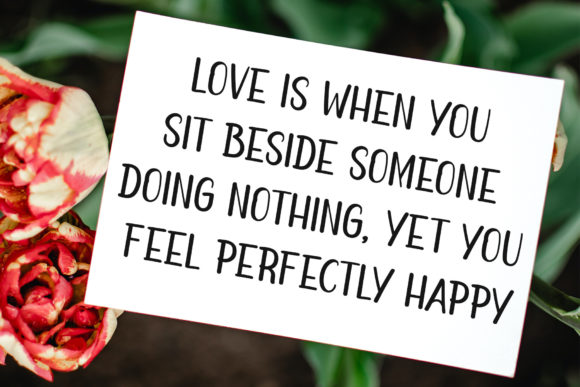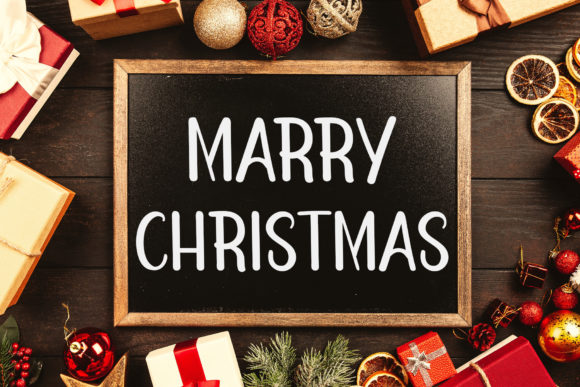
Farmhouse Starmoon Font
db-ku.com - Script & Handwritten -- Farmhouse Starmoon is a beautiful and simple script font. It has a modern look that can be used for logos, branding, invitations, stationery, wedding designs, social media posts, and much more!